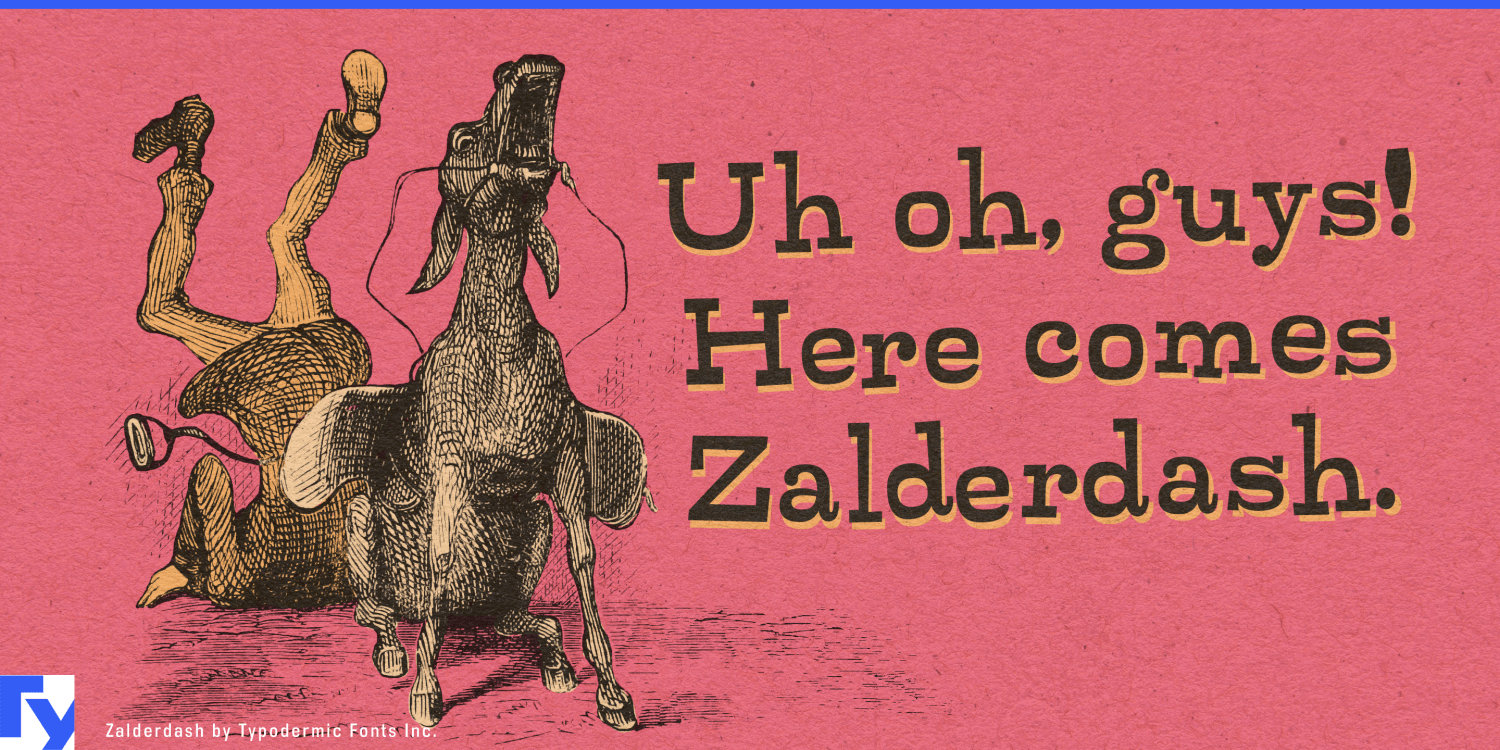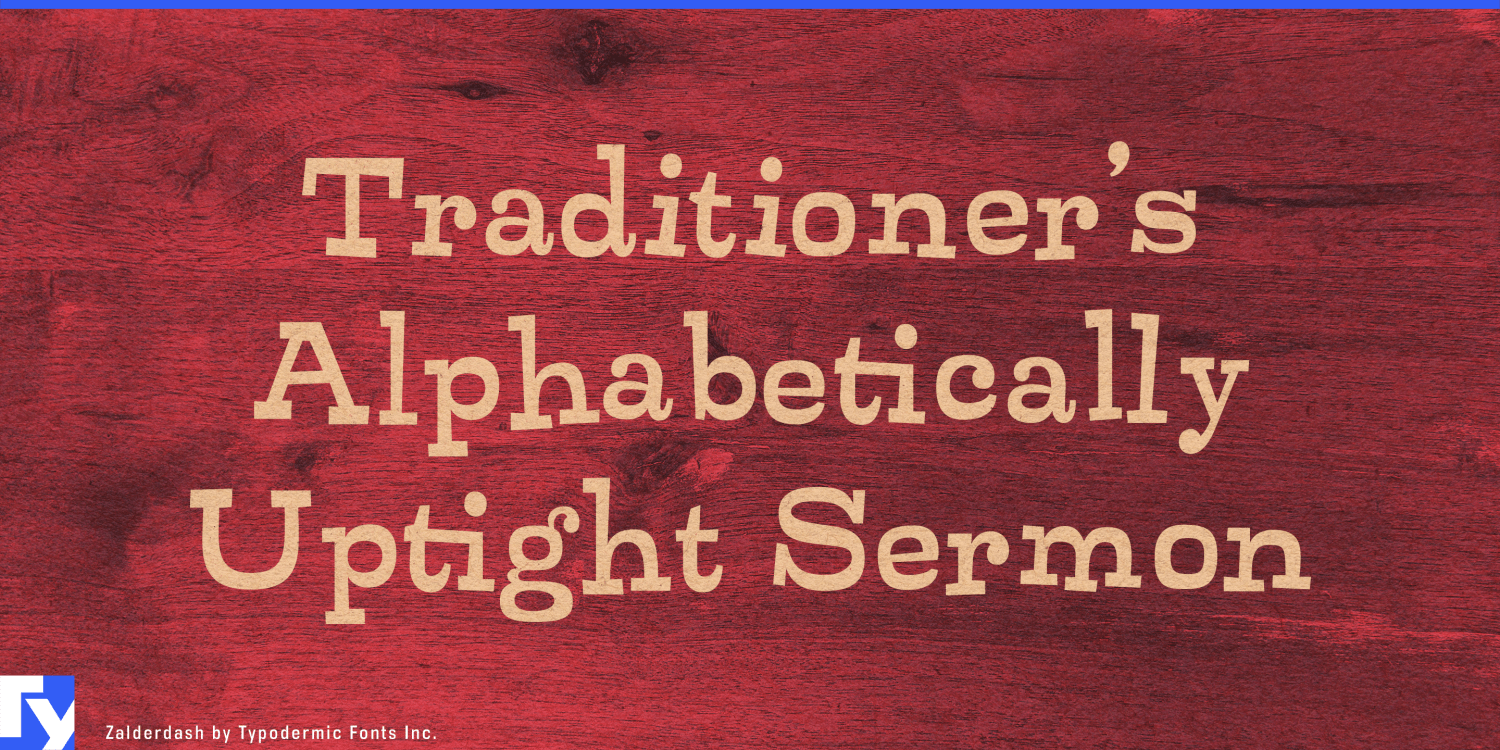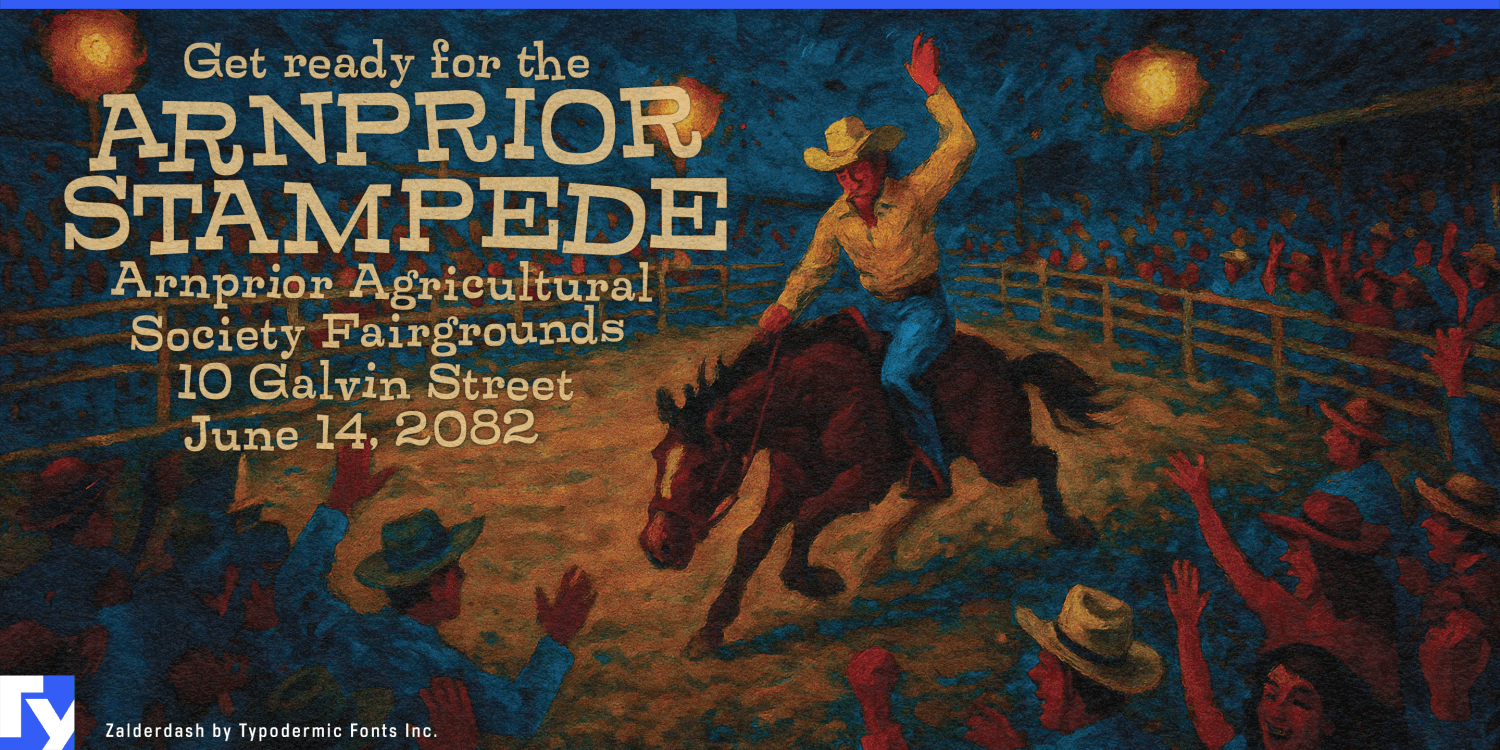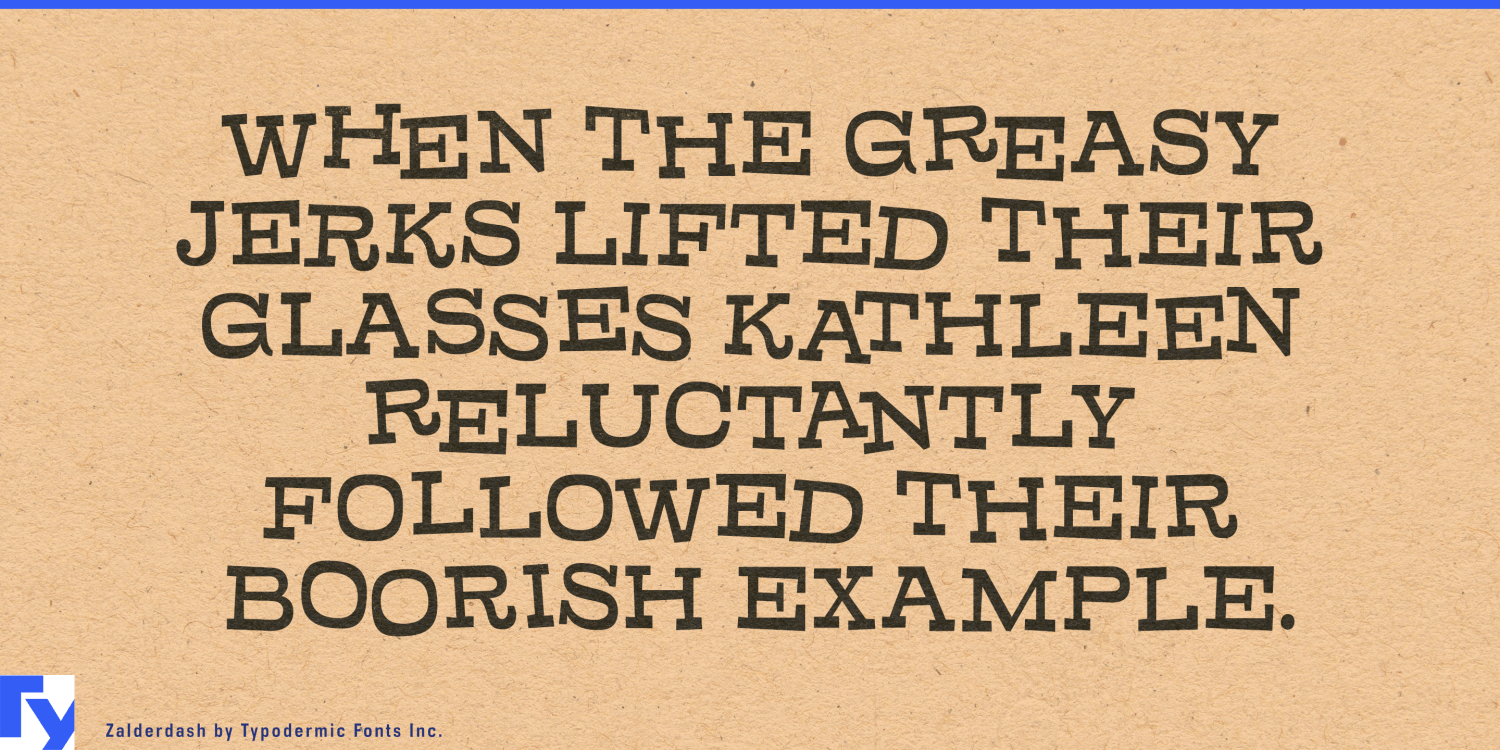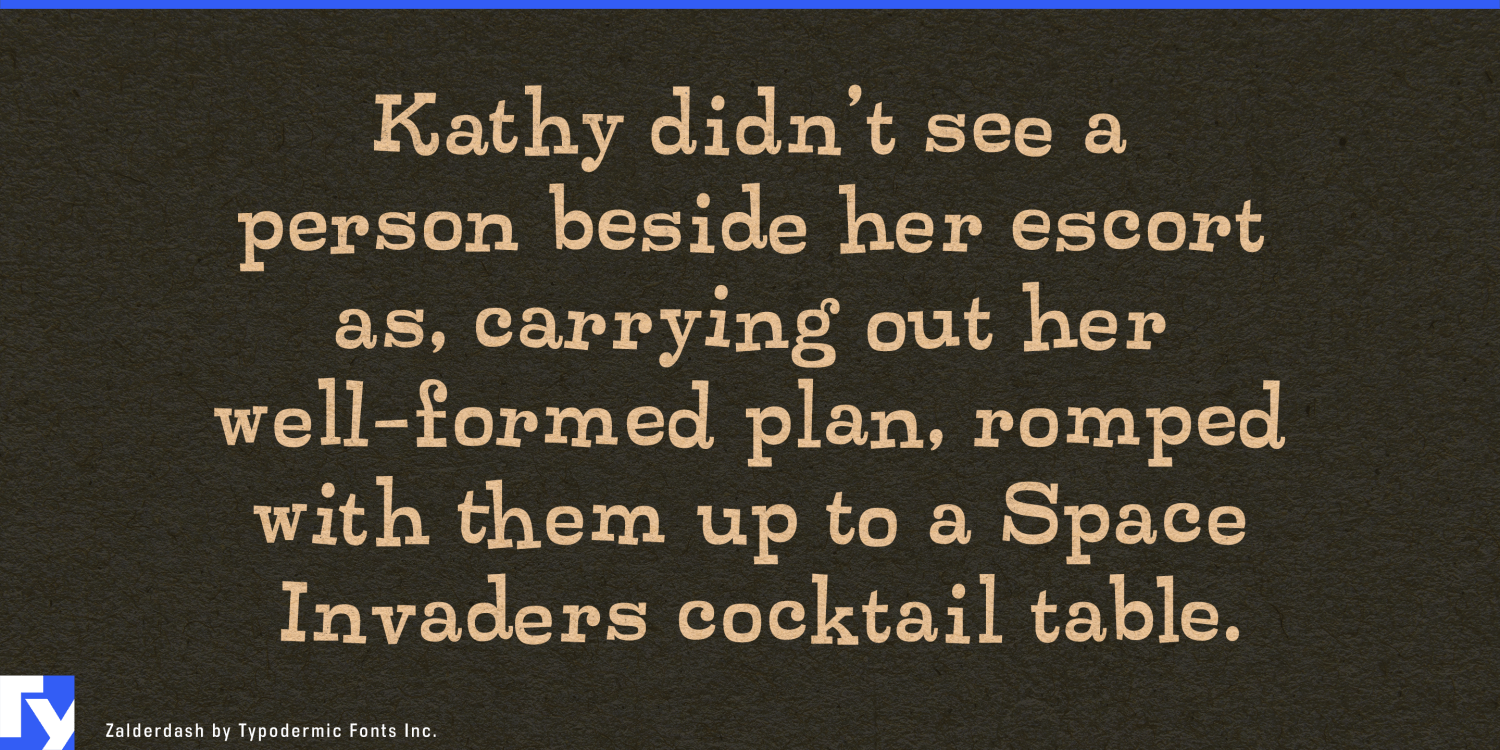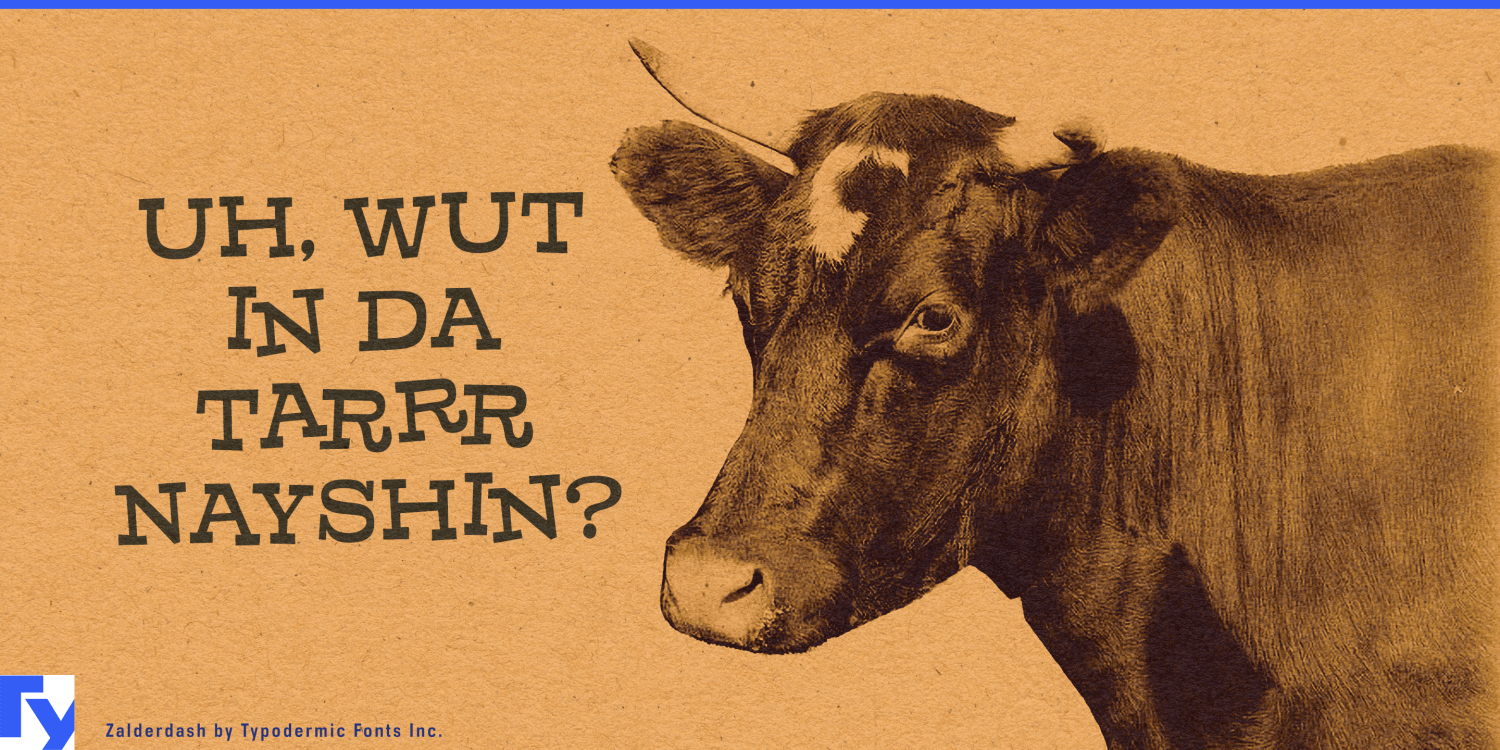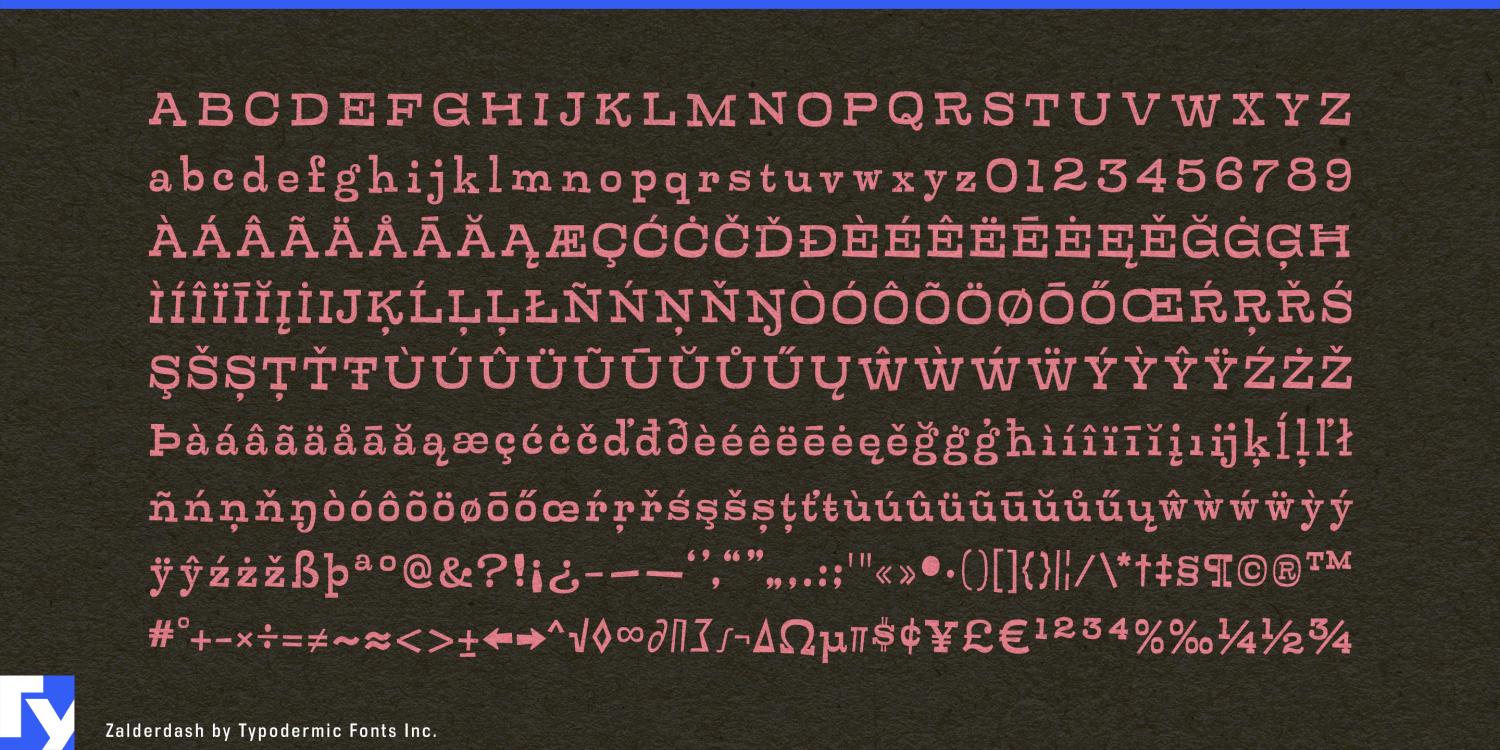
Zalderdash
Zalderdash is for systems that need consistency without looking too consistent. Its chunky slab-serif forms bounce, squeeze, and jostle against one another, while automatic substitutions introduce alternate combinations as text changes. The result keeps repeated headlines, names, and announcements from settling into the rigid repetition that can make deliberately unruly digital lettering feel manufactured.
That makes Zalderdash especially useful for family entertainment environments. Amusement parks, water parks, indoor adventure resorts, and large attractions generate enormous quantities of display typography: ride names, attraction zones, queue headings, map labels, food-stall names, seasonal-event titles, souvenir graphics, photo backdrops, and digital promotions. Zalderdash can keep those elements inside one recognizable visual language while allowing individual words and phrases to develop slightly different shapes.
Party and competition games can use the same controlled instability dynamically. Multiplayer cooking games, kart racers, physics games, carnival collections, and slapstick co-op titles need round announcements, challenge names, reward banners, level titles, item names, victory screens, and comic interstitials that feel energetic even when generated from a repeatable interface system.
Large snack and novelty-food ranges present another useful system. Popcorn, tortilla chips, ice-cream novelties, spicy snacks, sauces, and limited-edition flavours can use Zalderdash for product and flavour names across bags, cartons, multipacks, shelf displays, vending graphics, and seasonal campaigns. The irregularity can help individual varieties develop their own shapes while remaining clearly related.
Sports promotions and entertainment competitions offer similar territory. Mascot campaigns, fan zones, exhibition games, halftime promotions, challenge shows, food competitions, and physical-game formats all rely on short phrases that need to feel lively across scoreboards, set graphics, shirts, social clips, and promotional displays.
Zalderdash is most effective in short, prominent bursts where the words are part of the entertainment. It gives attractions, games, snack ranges, sports promotions, and competition formats a repeatable display voice that still looks as though somebody has been rearranging the letters between appearances.